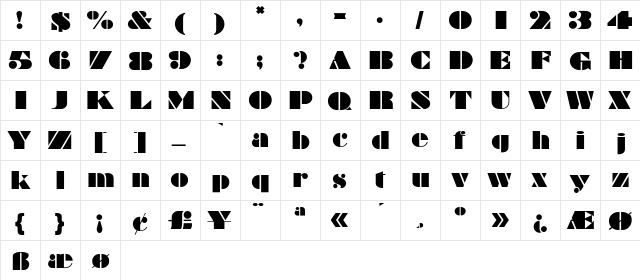
MBraggadocio Regular Font Preview
MBraggadocio Regular
Design Context for MBraggadocio Typeface
MBraggadocio is a composed and adaptable typeface that performs quietly and consistently across a wide range of design contexts.